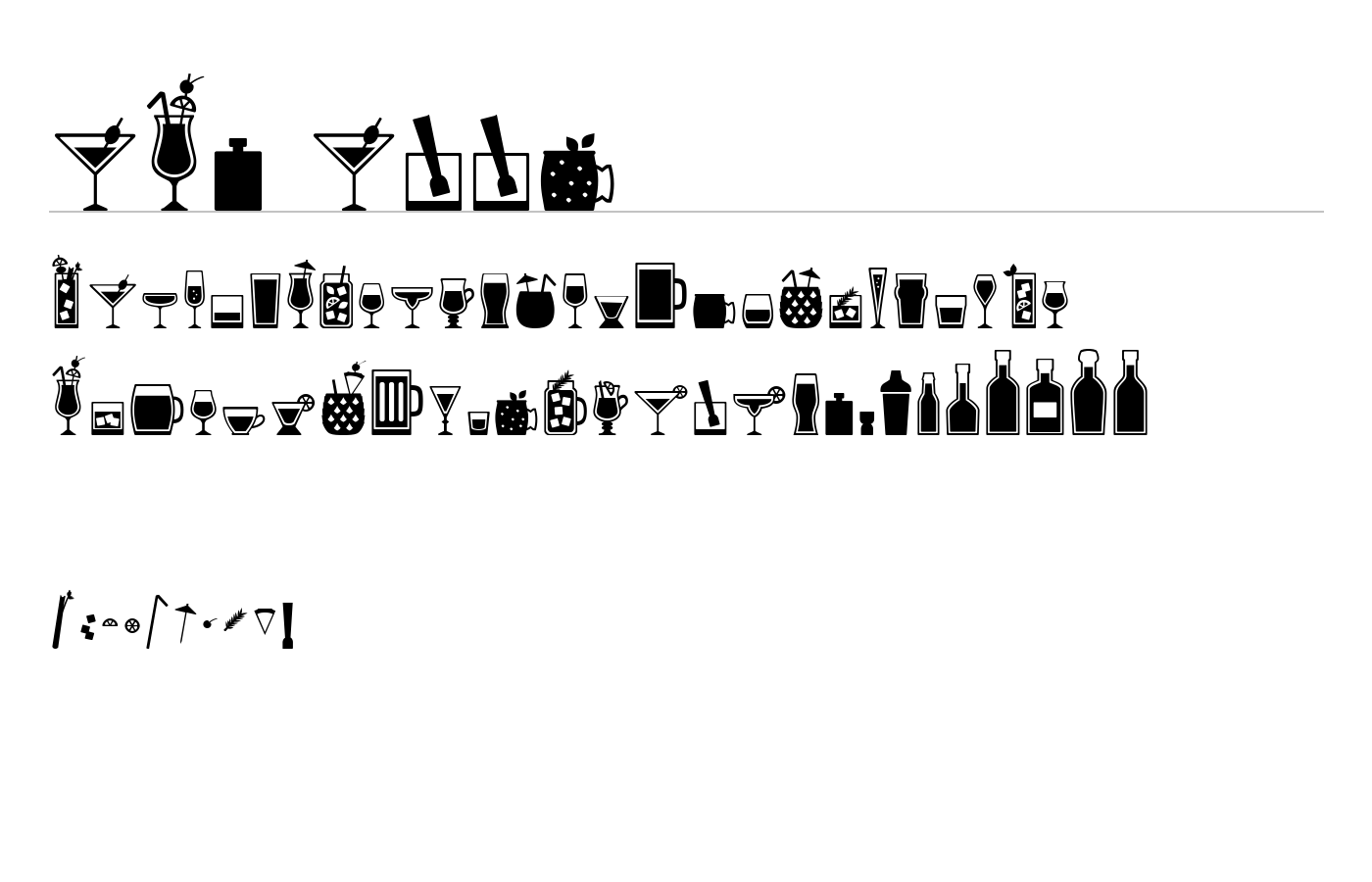
Bar Book Font is a playful, decorative icon font featuring detailed silhouettes of barware and cocktail-related items, perfect for adding a lively and thematic touch to designs. Its clean, bold shapes make it highly recognizable and versatile for use in menus, event invitations, and branding related to bars, restaurants, and nightlife. This font works best for creative projects seeking a fun, stylish vibe centered around drinks and social gatherings.
Bar Book Font
About Bar Book Font
| Font family | Bar Book Font |
| Designer | Lauren Ashpole |